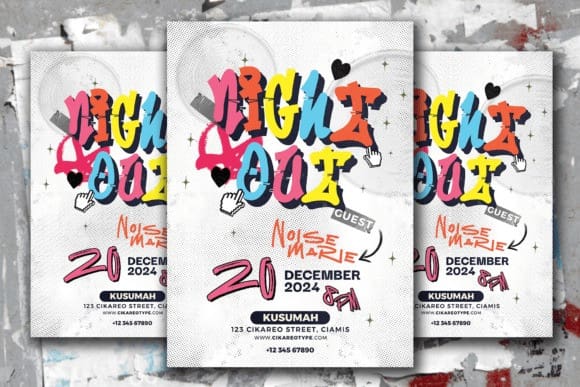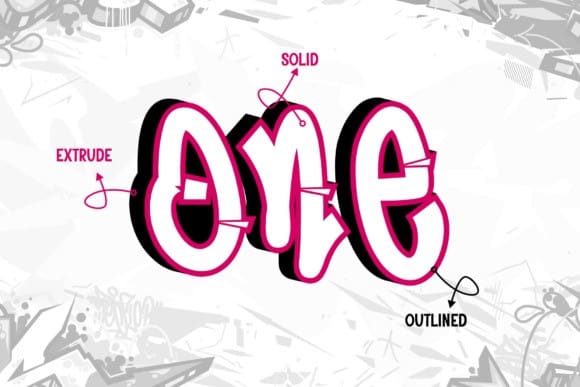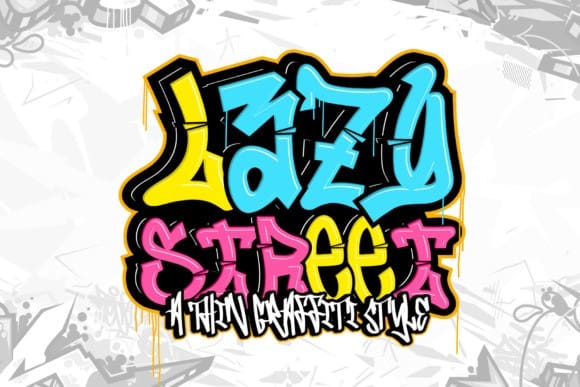
Lazy Street Font
Lazy Street Font, a thin, multi-layered graffiti font. Modified with a trio of distinct styles that include solid, outline, and extrude, this font provides the power to mingle layers for the creation of exhilarating, dimensional designs with a touch of refinement. With its slender strokes, it stylishly revolutionizes the graffiti aesthetic, rendering it a perfect match for creations that necessitate an equilibrium of discreet cool, and unapologetic attitude.
From streetwear designs, trend-setting posters, album covers, and urban brand identities to inventive layouts, Lazy Street injects an edgy yet elegantly casual flair into your creations. It tastefully encapsulates the raw spirit of graffiti culture, simultaneously preserving its lightweight and refined aesthetic. Lazy Street is the ultimate accompaniment for those desiring to make a chic yet commanding impact.